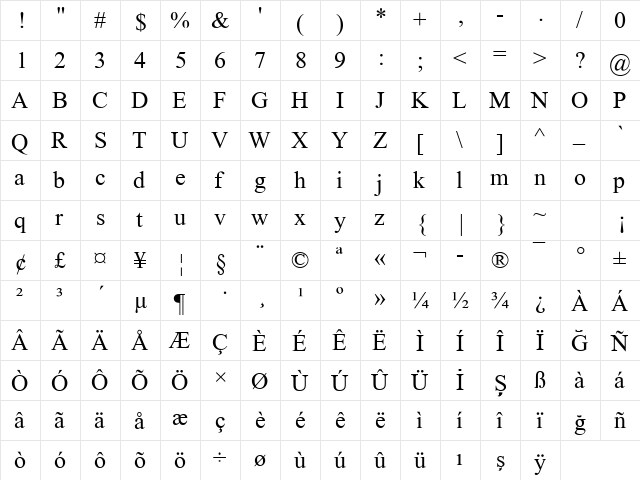
Turan Latin Regular
Design Context for Turan Latin Typeface
Turan Latin takes a measured approach to typography — its balanced proportions and neutral character make it a reliable workhorse for both digital and print work.